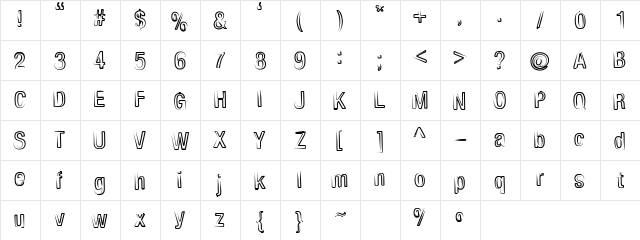
Sensitivity Regular
| Foundry | Andrew Boyle |
| Designer | Andrew Boyle |
Sensitivity is a composed and adaptable typeface that performs quietly and consistently across a wide range of design contexts.